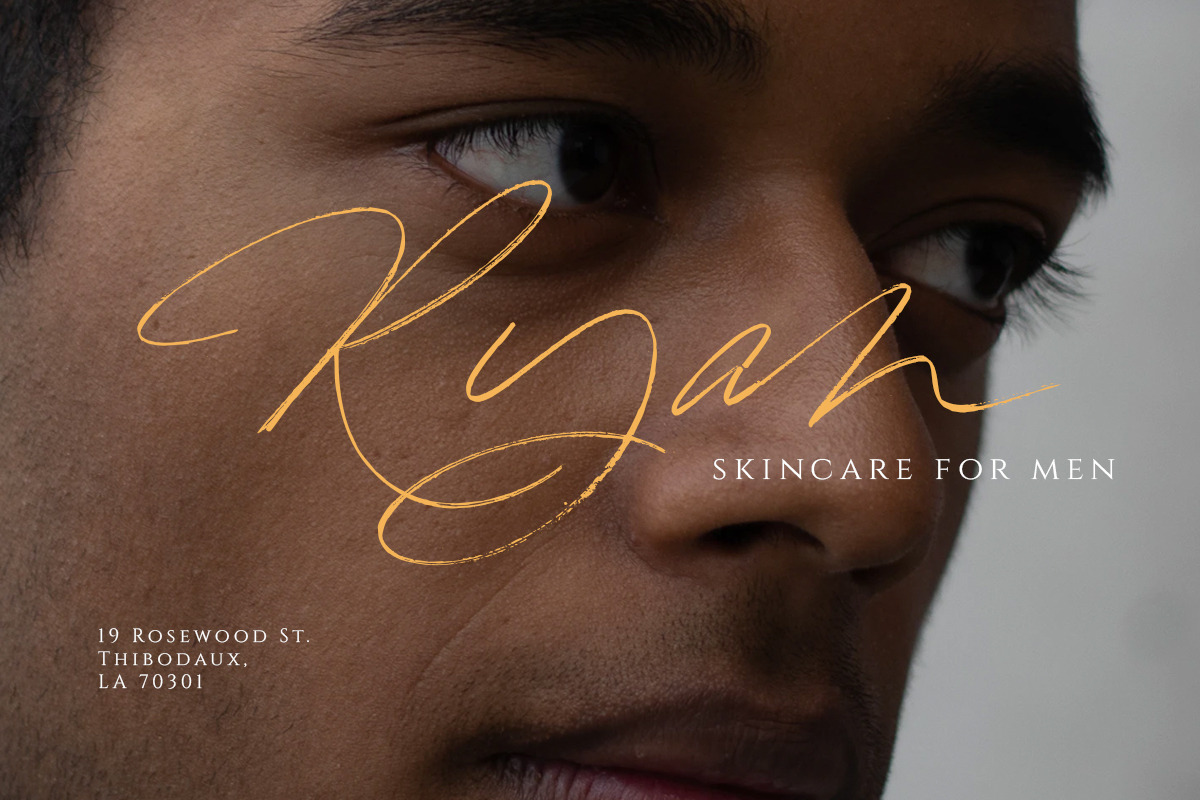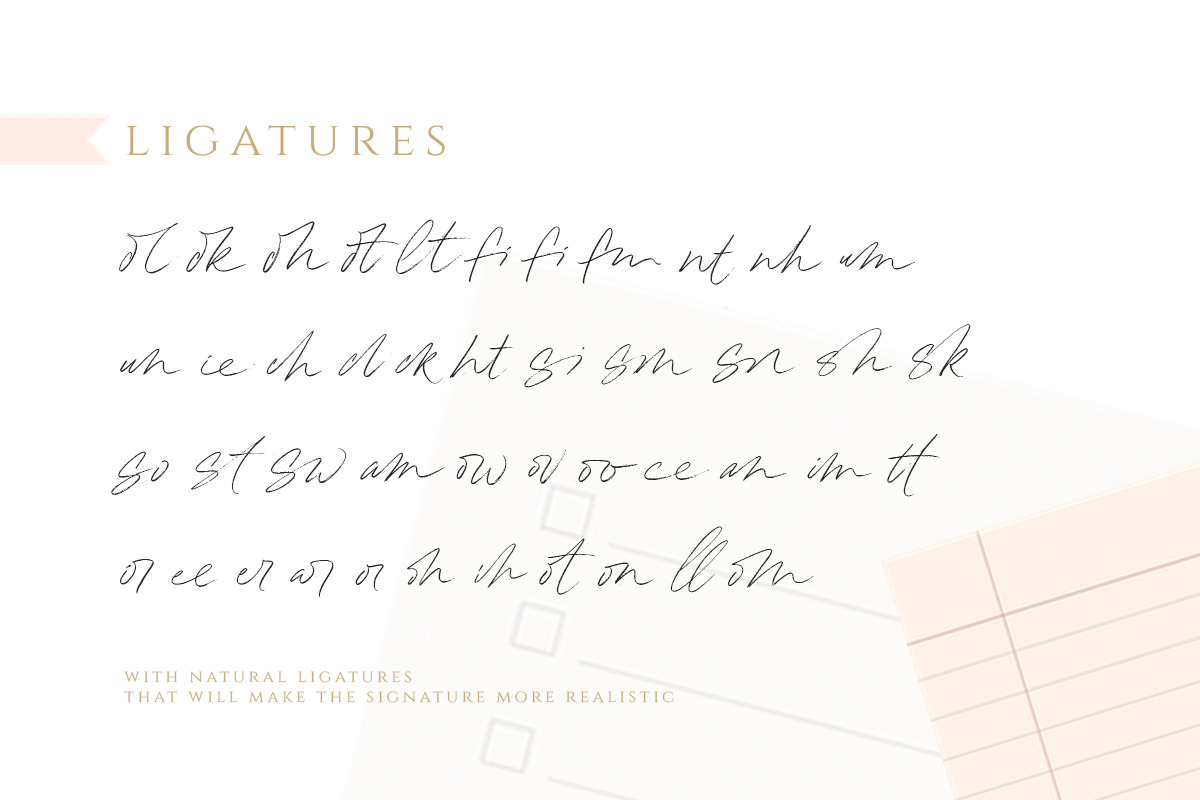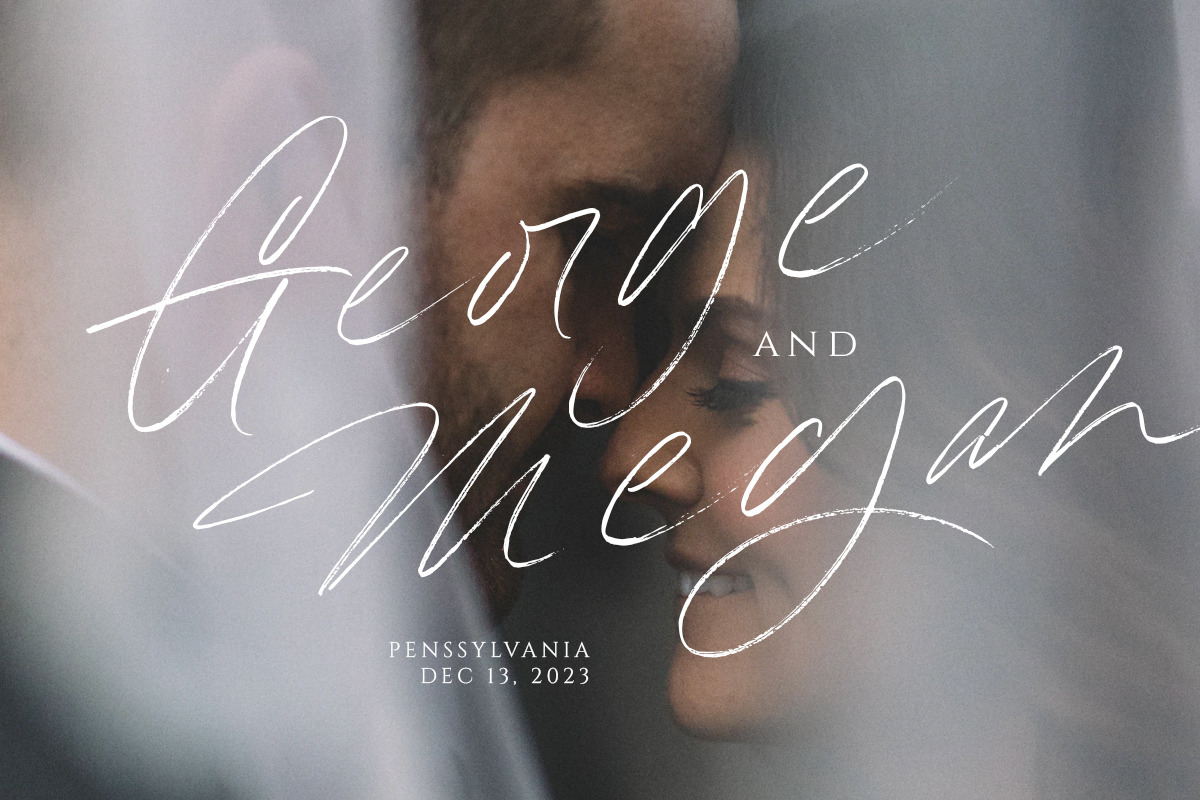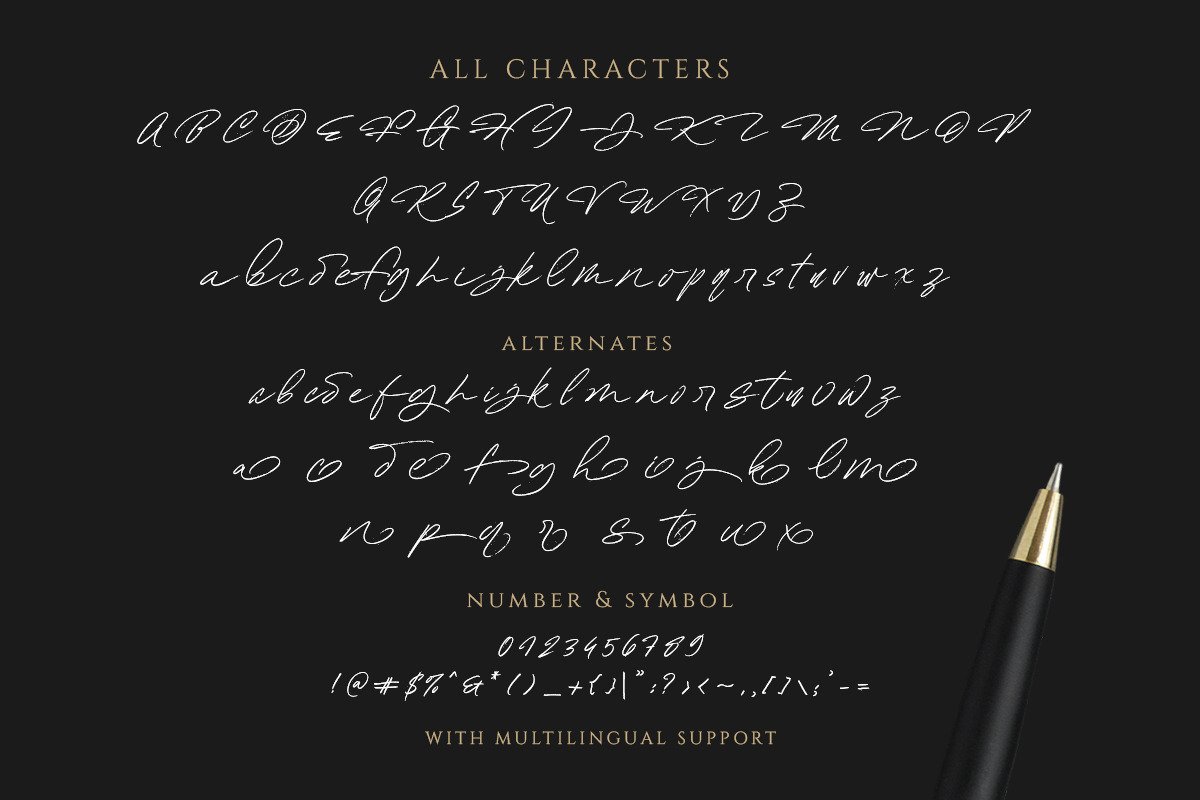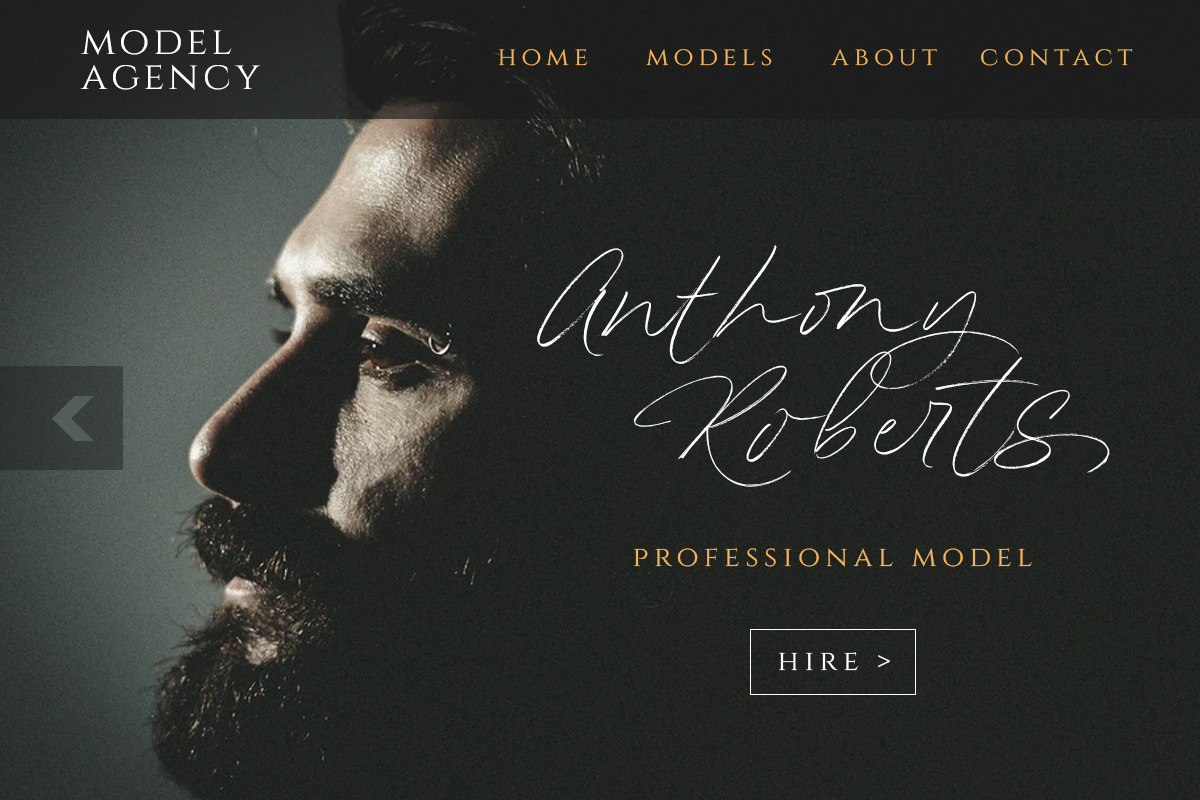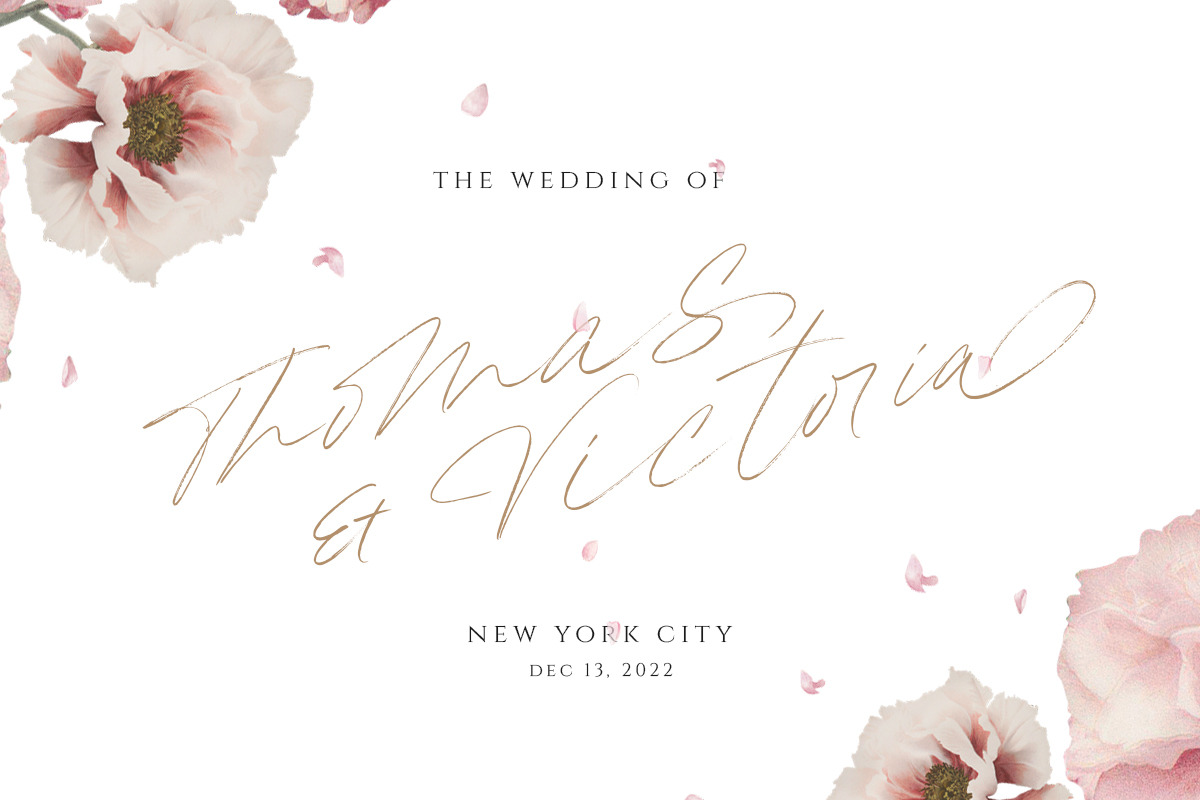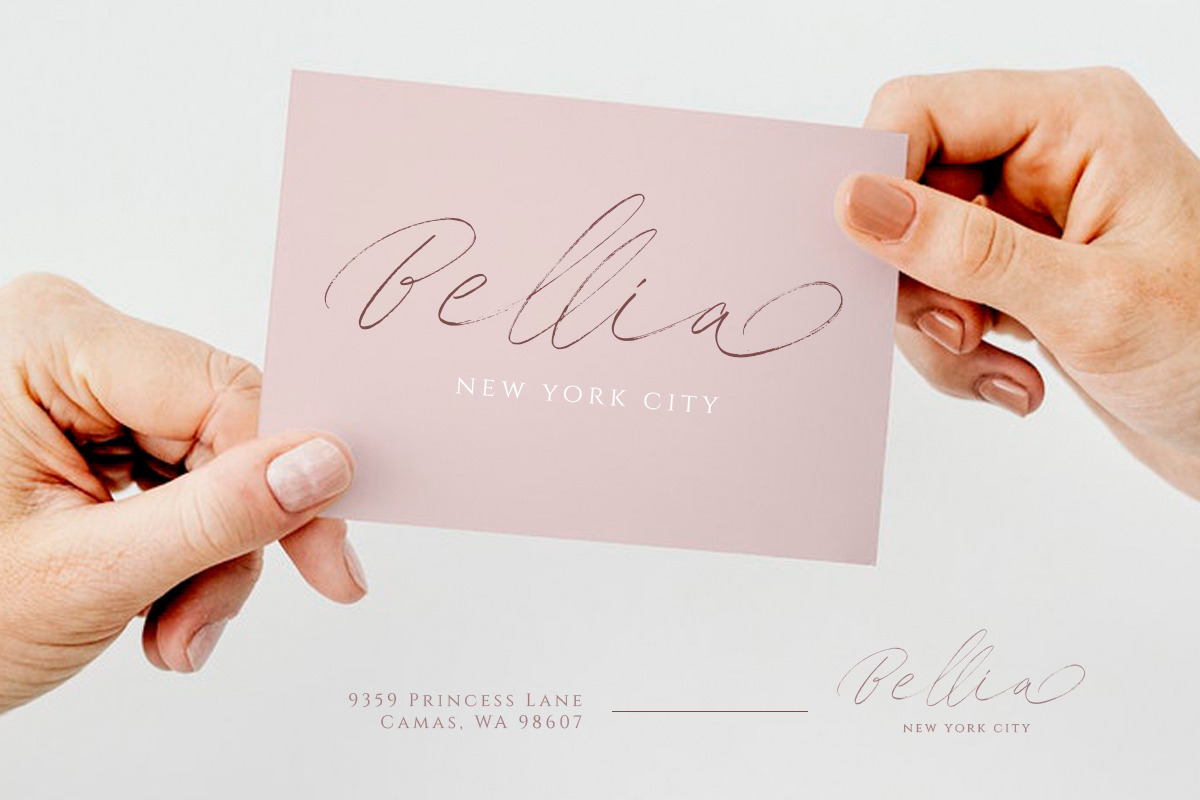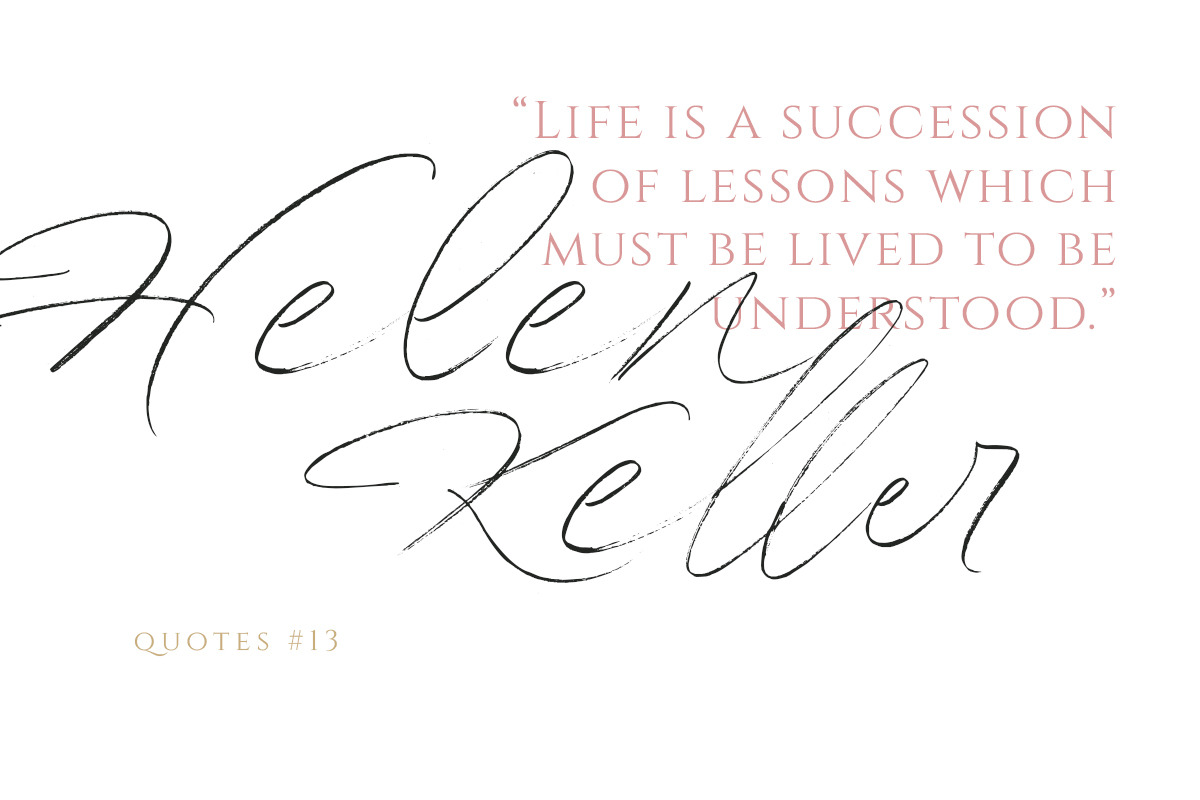
Hollowsky - Signature Script
Introducing, Hollowsky - A beautiful signature script based on manual hand writing. The stylistic alternate, ligatures and the rough texture make this font looks a real hand writing instead of typing a font. This type of font perfectly made to be applied especially in logo, and the other various formal forms such as invitations, labels, logos, magazines, books, greeting / wedding cards, packaging, fashion, make up, stationery, novels, labels or any type of advertising purpose.
- alternates and ligatures